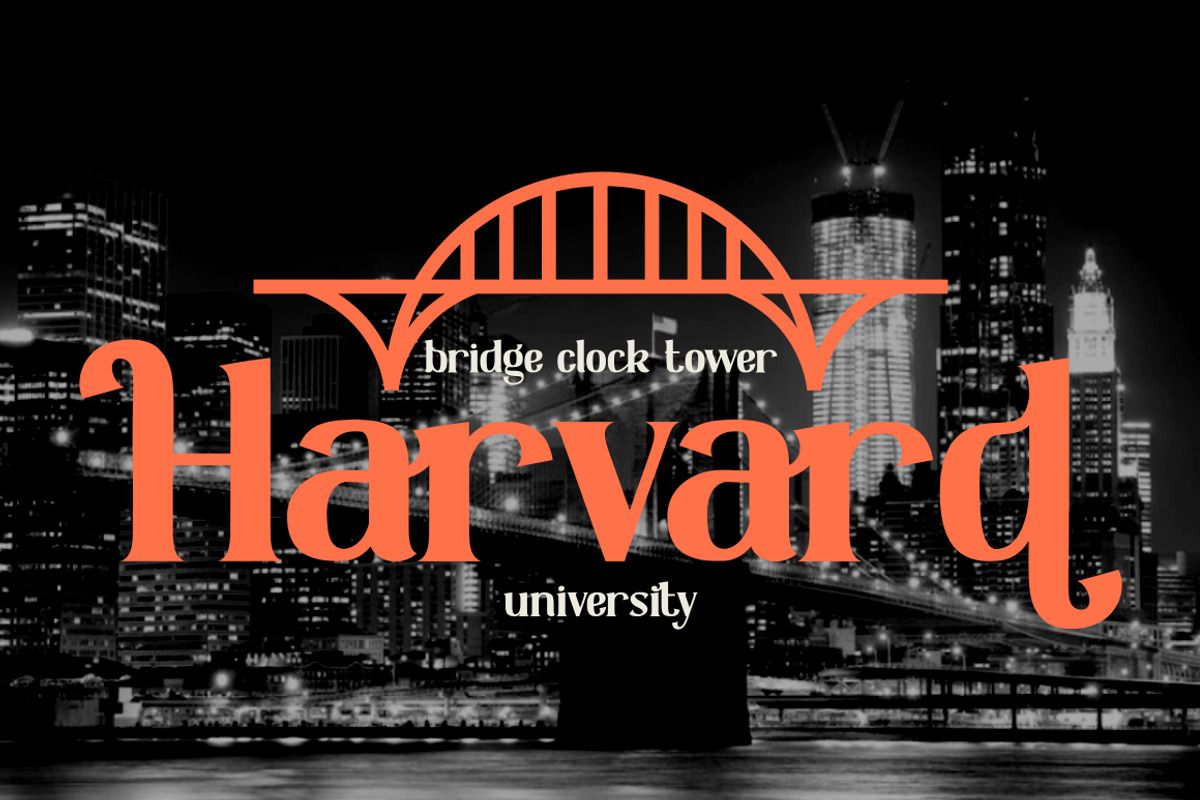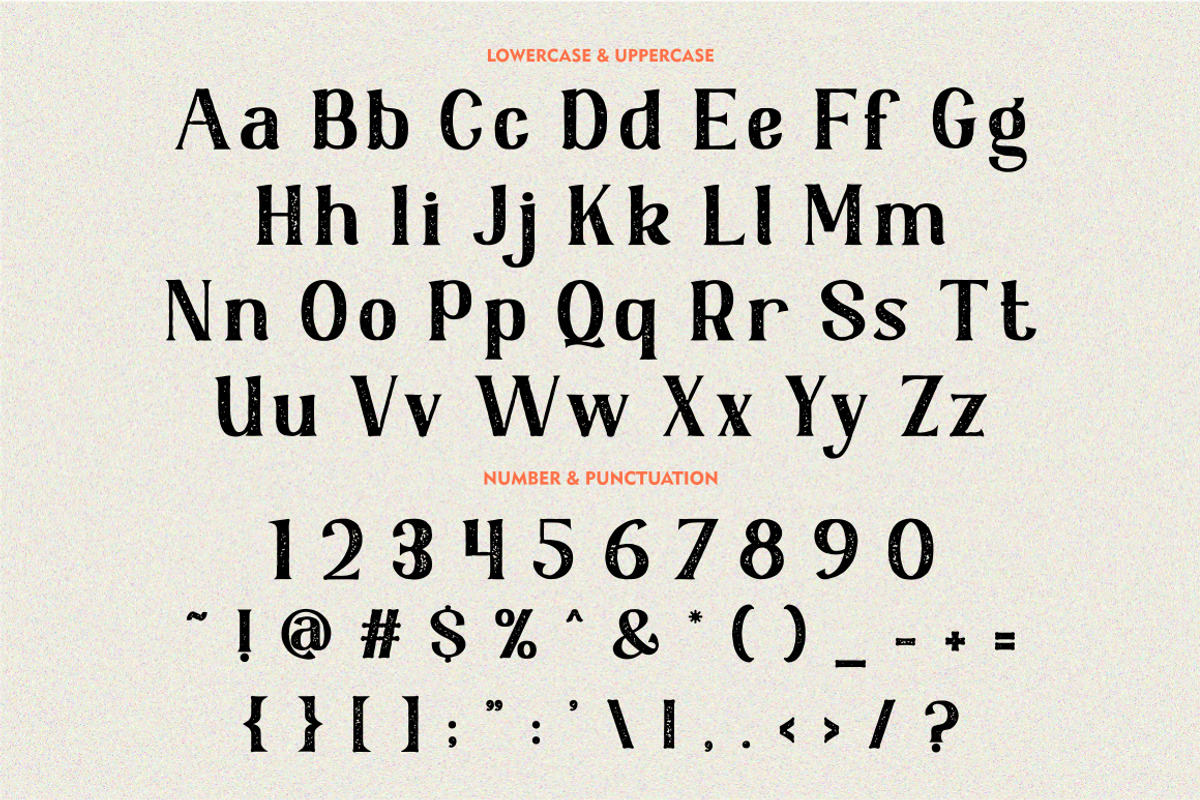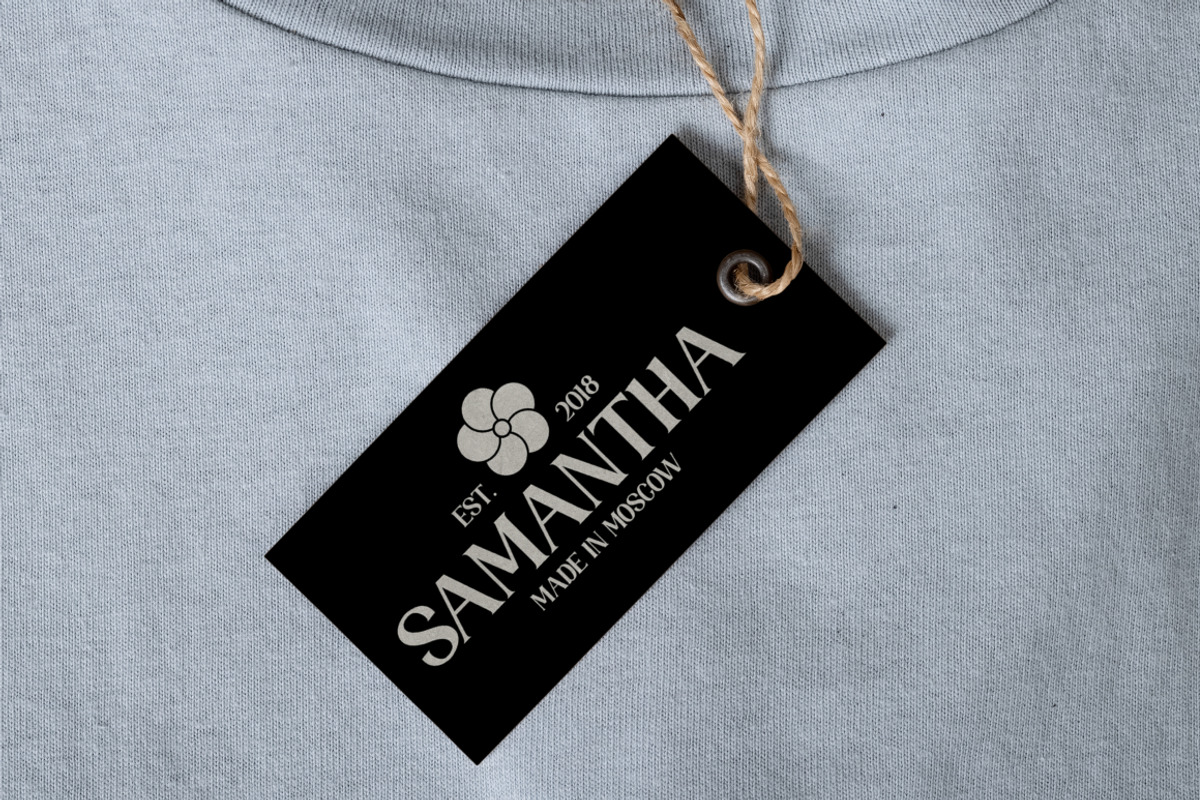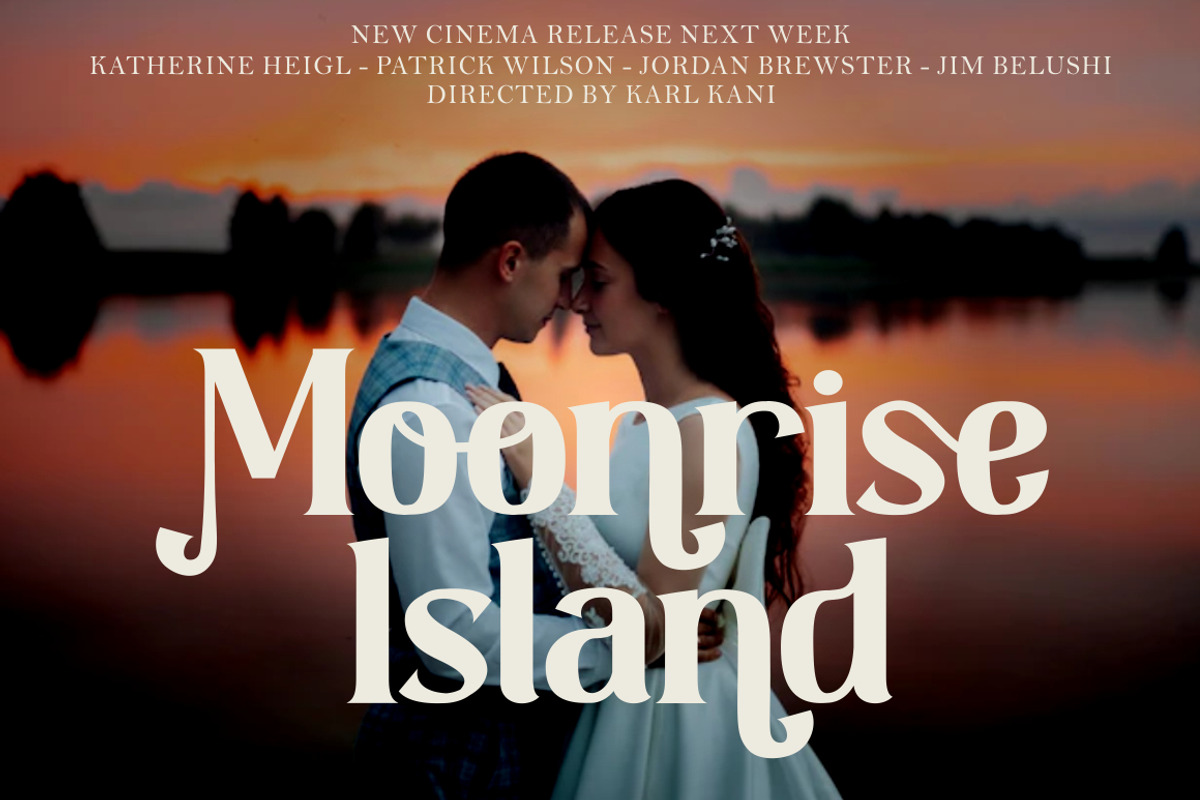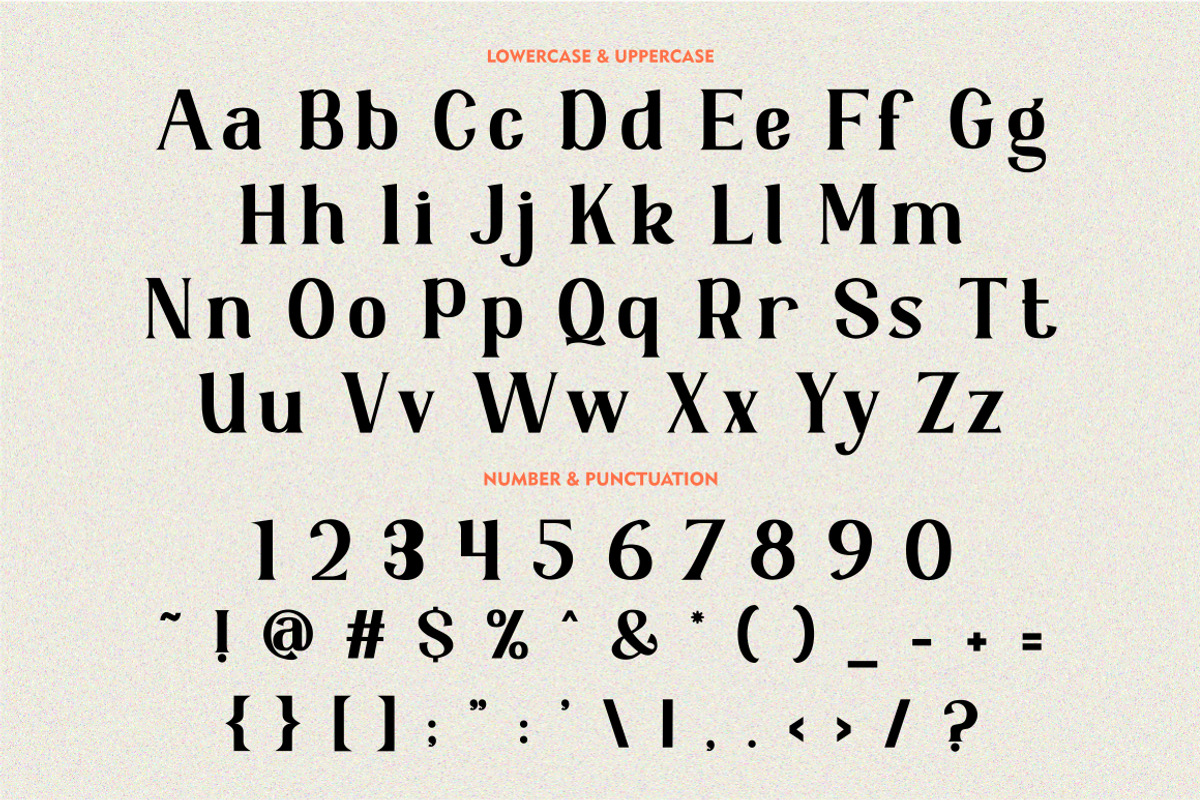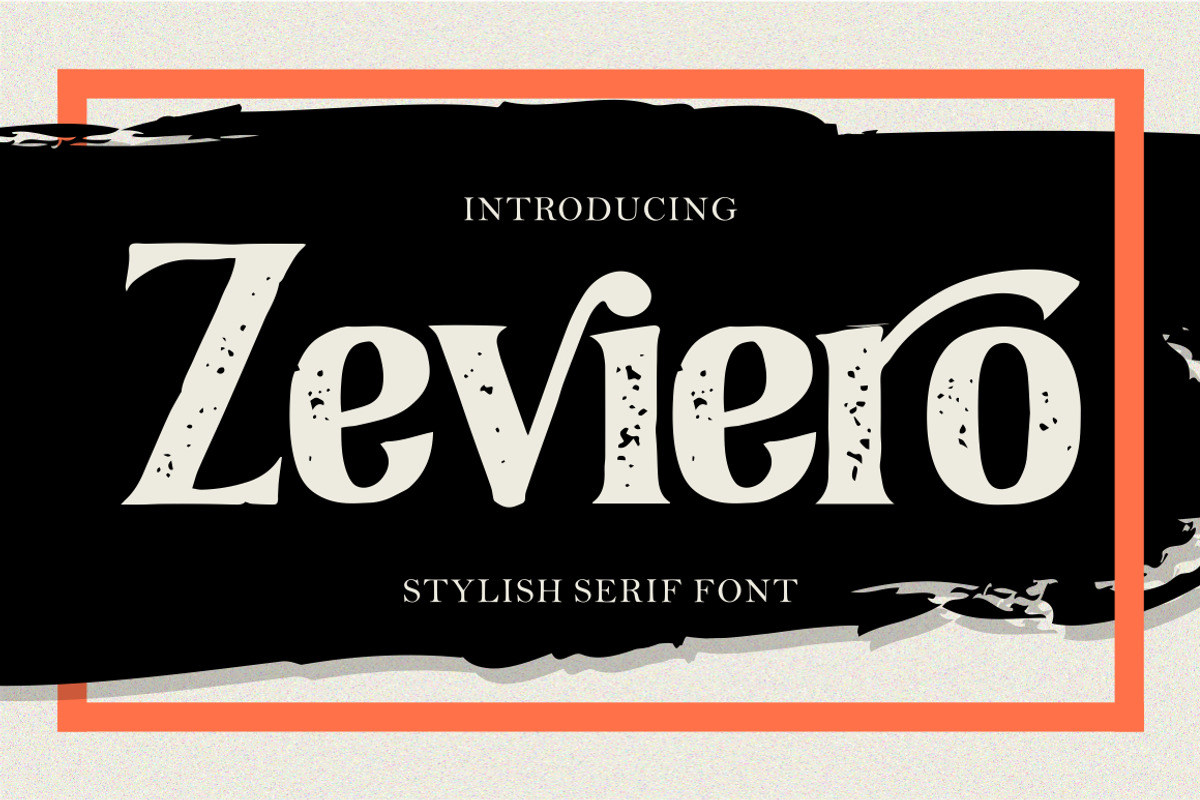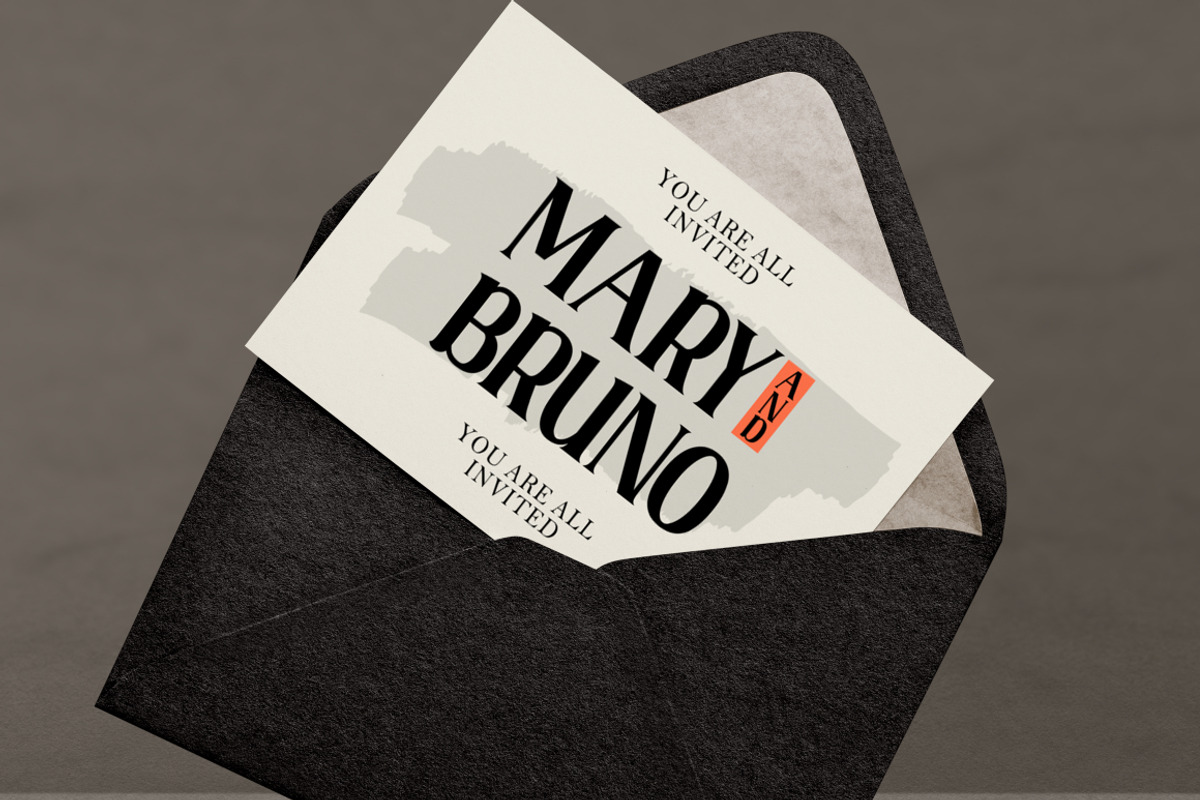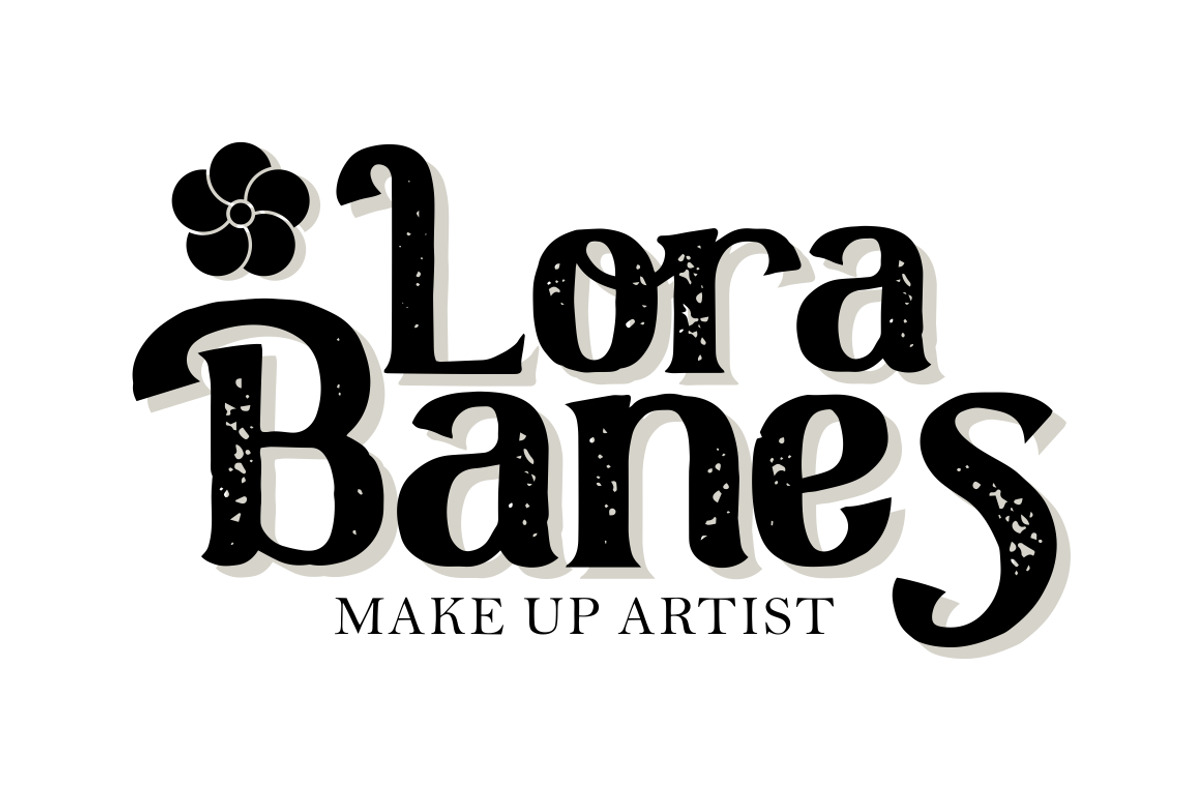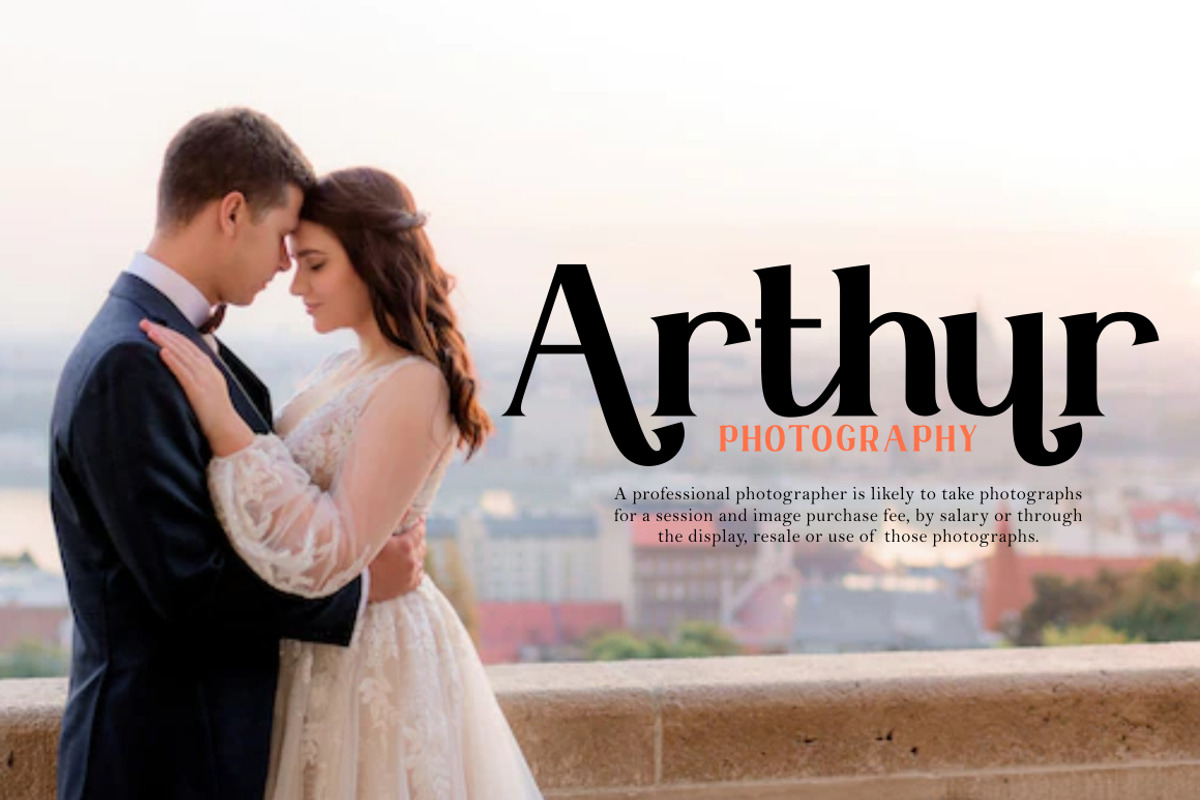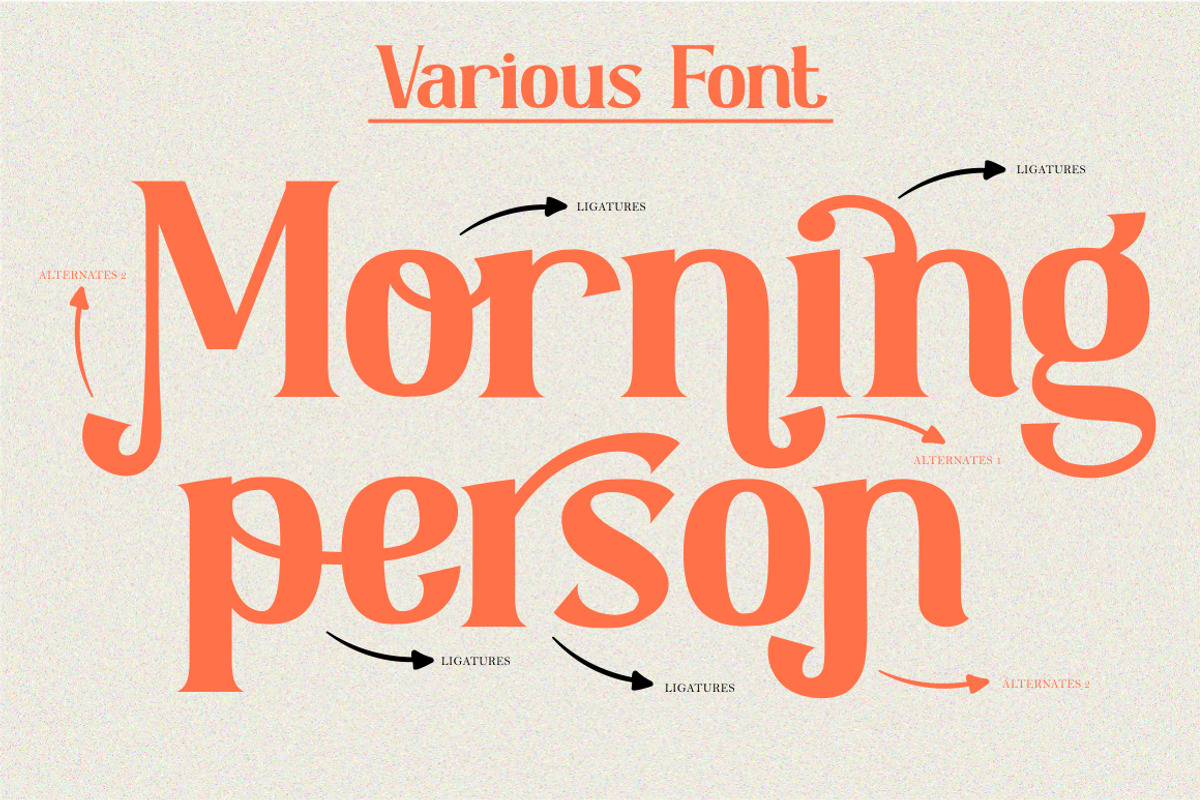
Zeviero - Stylish Serif Font
Zeviero - Stylish Serif Font. Introducing the new Zeviero !! Zeviero inspired by Elegant and Luxury typography. Zeviero is a Stylish & Beautiful serif typeface. Zeviero Font is a very versatile font. you can use this font to various design
Zeviero is perfect for a professional touch which makes it to form unique & elegant typography designs. Zeviero is perfect for headings, flyer, greeting cards, product packaging, book cover, printed quotes, logotype, apparel design, album covers, etc.
The alternative characters were divided into several Open Type features such as Swash, Stylistic Sets, Stylistic Alternates, Contextual Alternates, and Ligature. The Open Type features can be accessed by using Open Type savvy programs such as Adobe Illustrator, Adobe InDesign, Adobe Photoshop Corel Draw X version, And Microsoft Word. Zeviero is also support multi language.
Comes with feature :
- Opentype (Alternates And Ligatures)
- Number, Punctuation And Symbols
- Multilanguage Support.